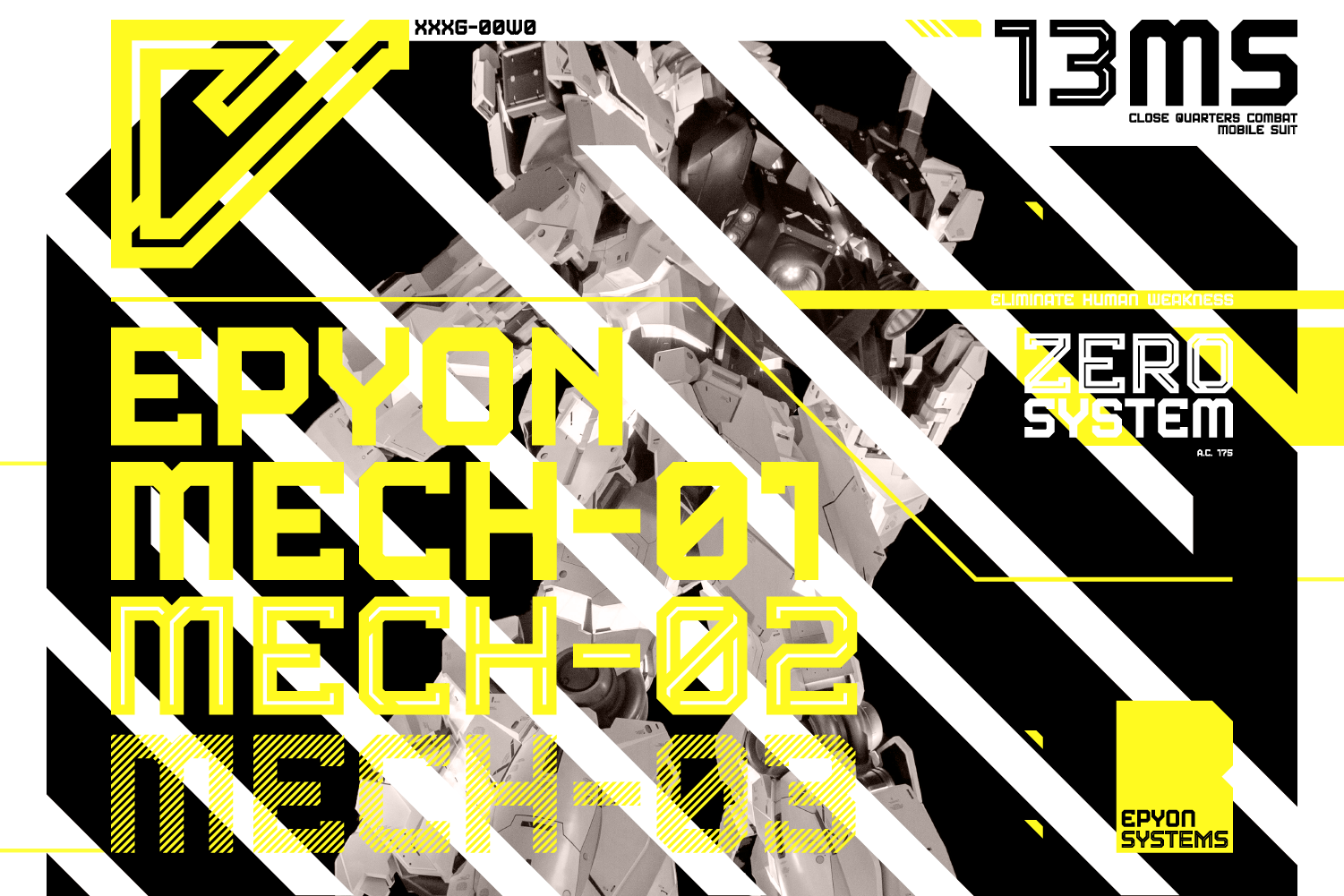
EPYON MECH Futuristic Typeface
EPYON MECH - Futuristic Typeface - Released August 2021
"Epyon Mech" is a Futuristic Uppercase Focused Display Font in 3 different styles to work with your project. Lowercase letters are variants of upper in most cases.
"Mech 1" Solid Fill Bold Font. "Mech 2" Structured Outline. "Mech 3" 45Degree Line.
All 3 Work well together when mix and matched.